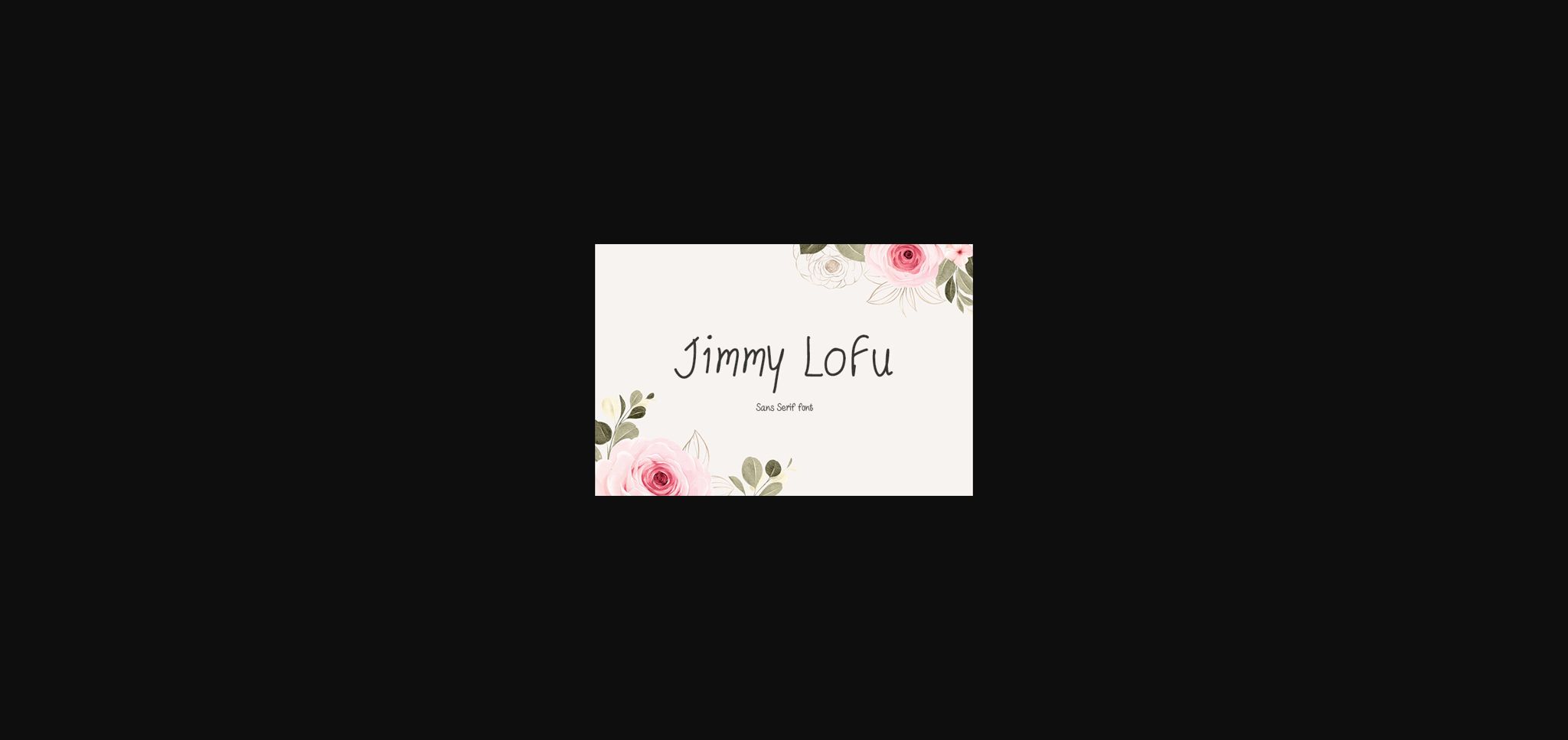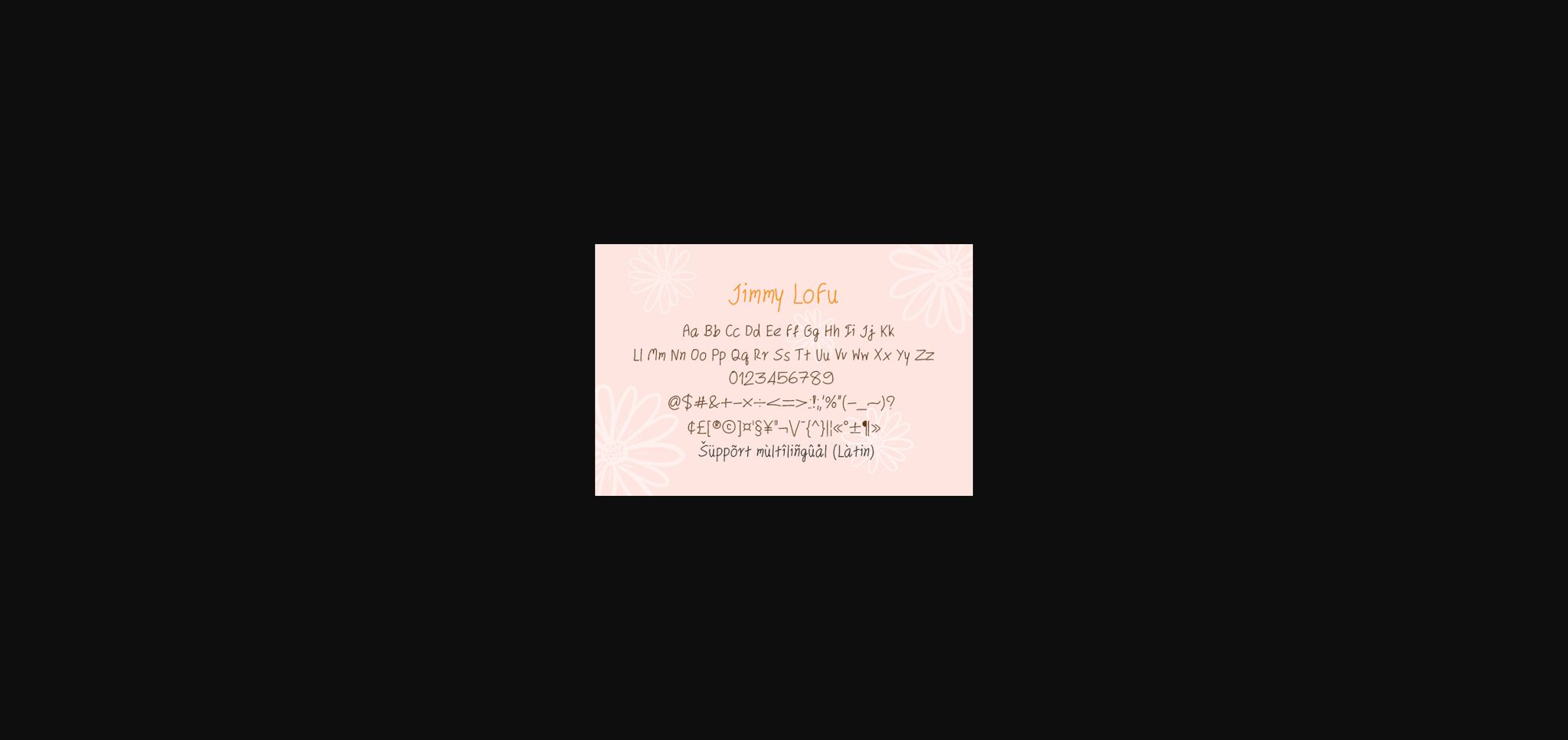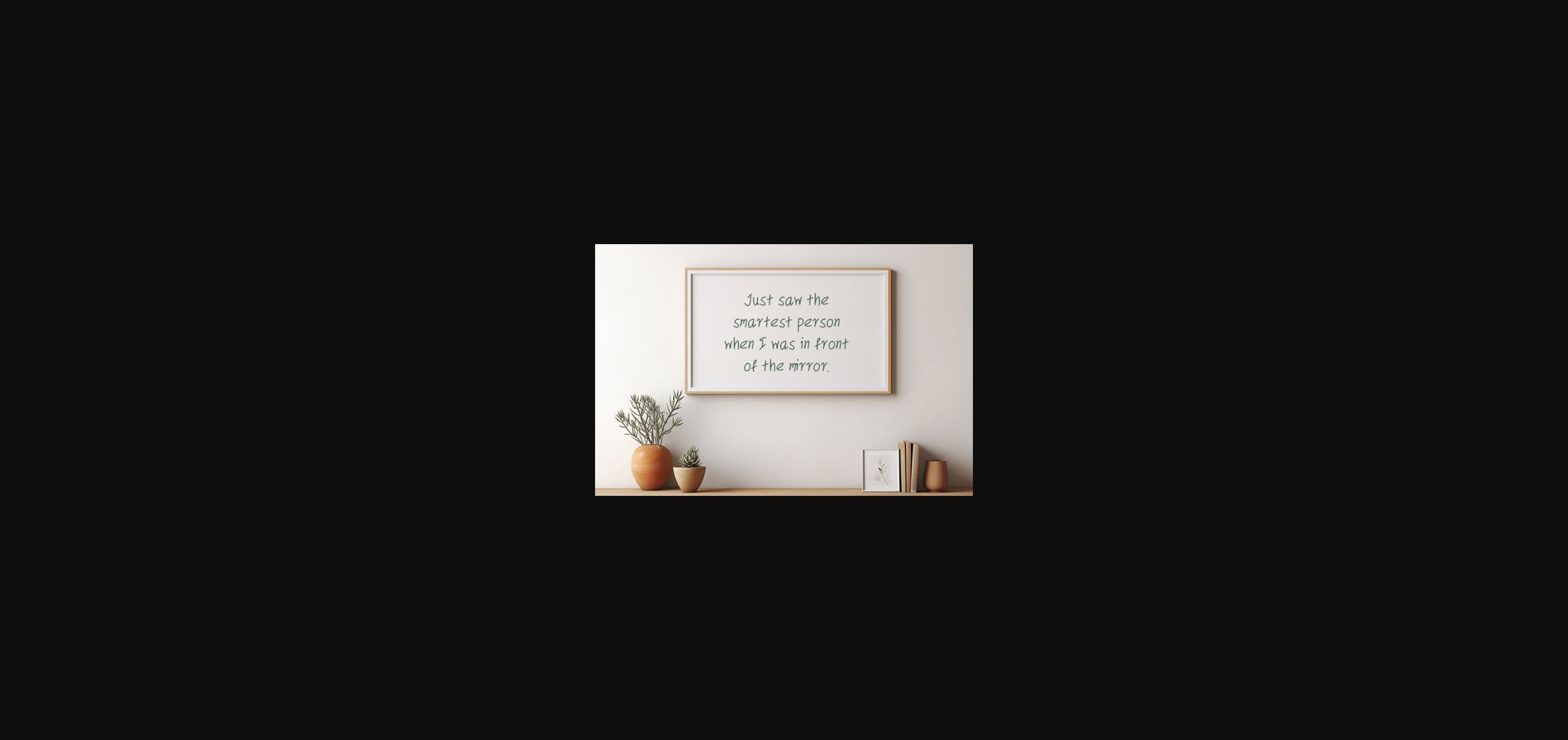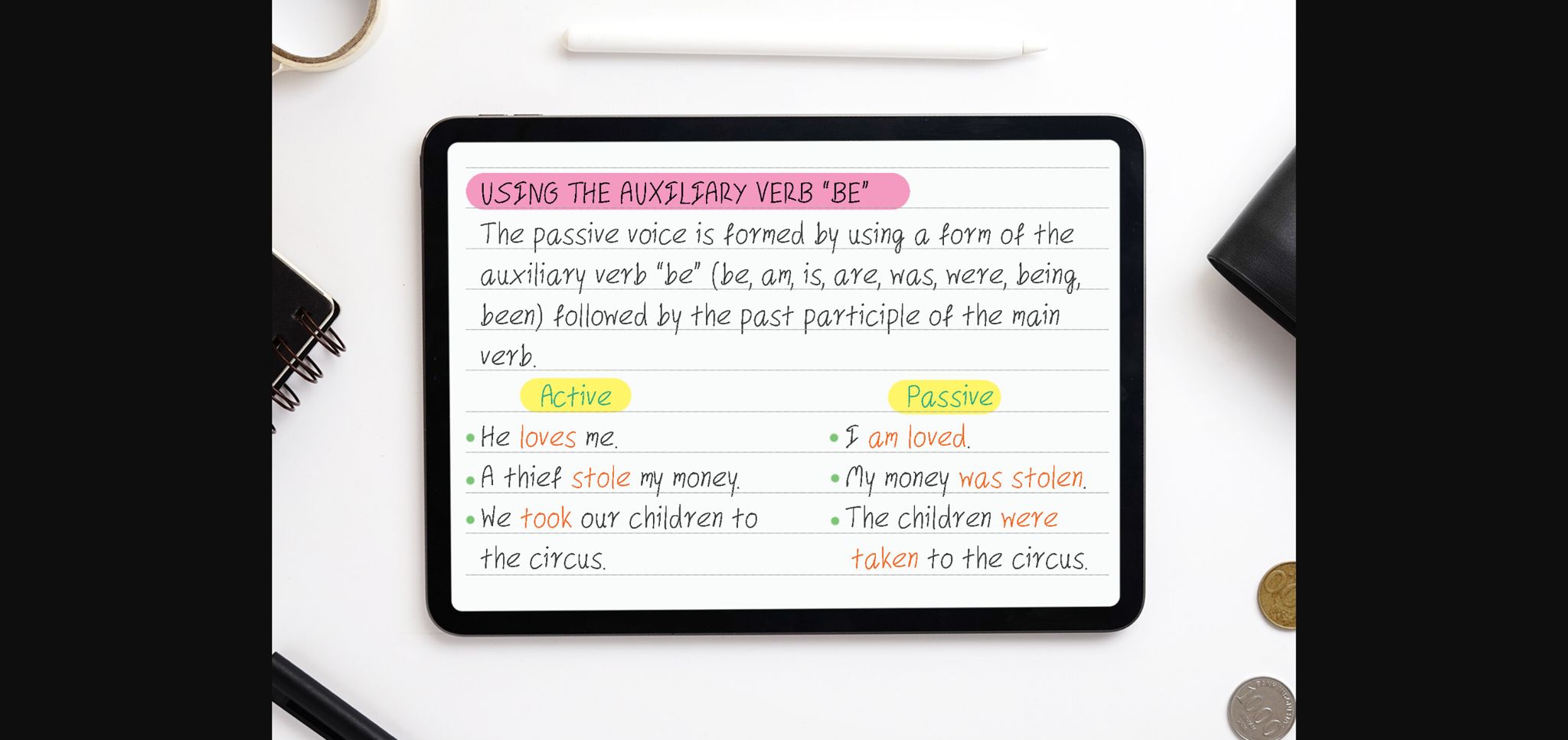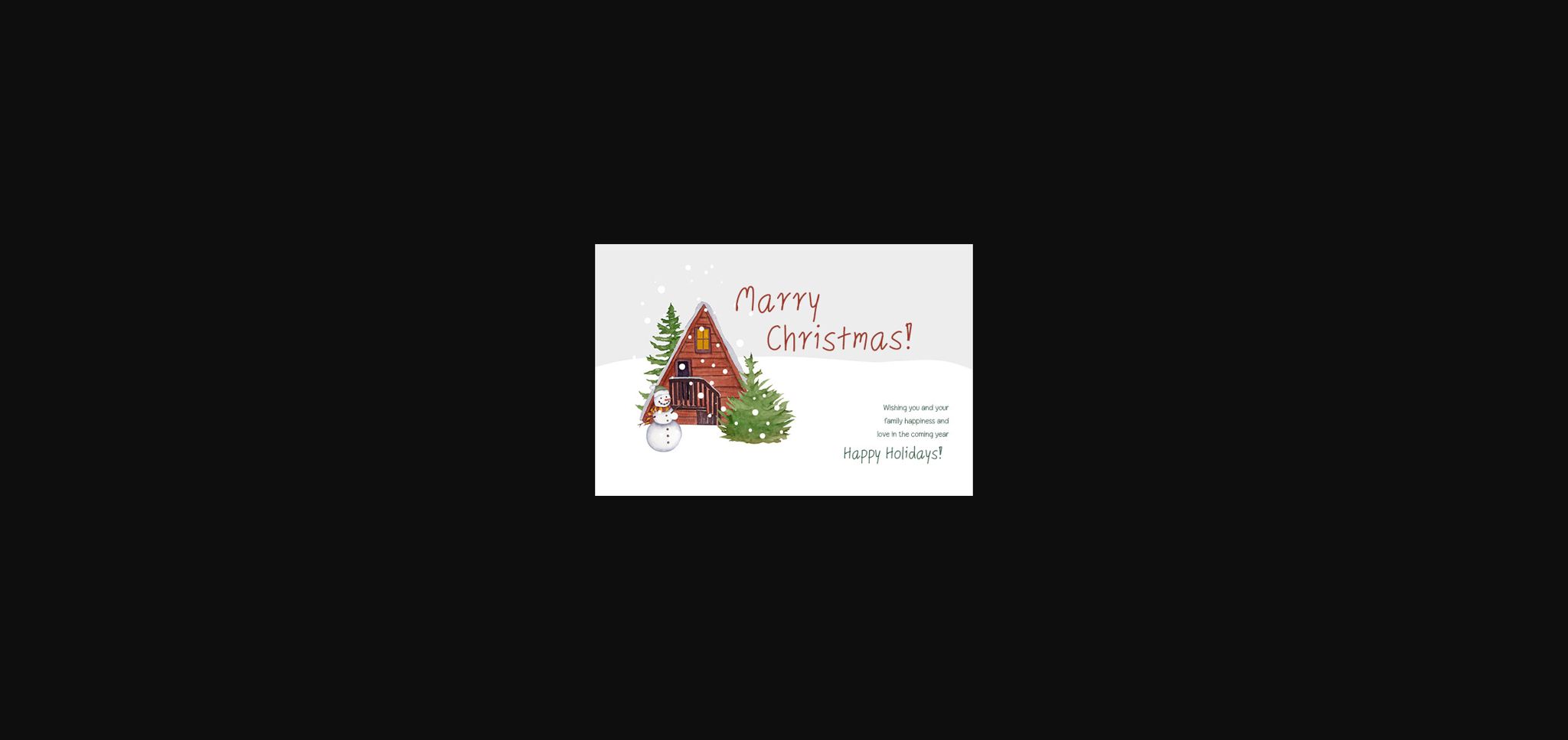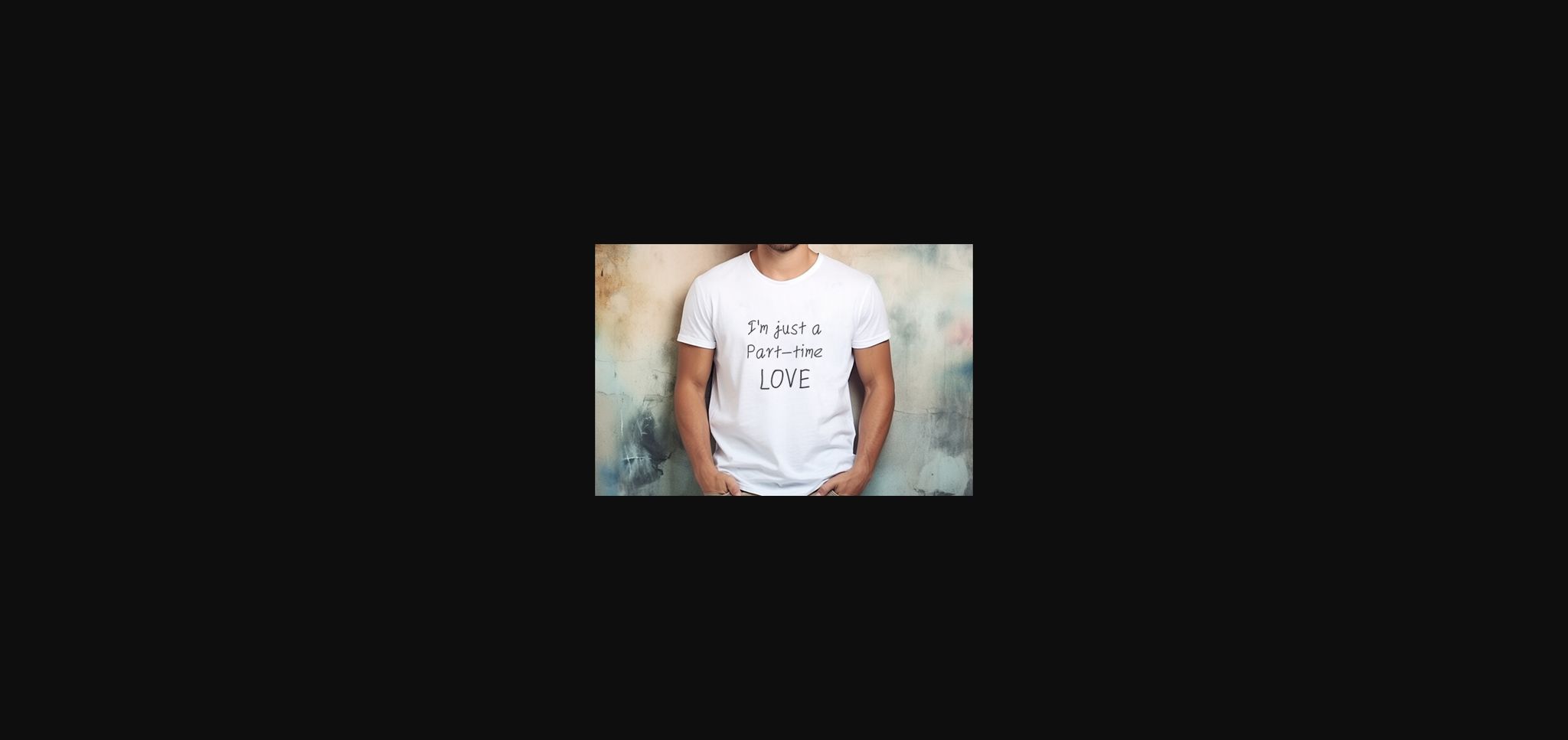
Jimmy Lofu Font
About Jimmy Lofu Font
Jimmy LoFu is designed in a charming, whimsical, and a bit quirky sans serif font style. It would be awesome to your fun projects or diary planner, on wedding invitations, thank you cards, quotes, greeting cards, logos, posters, blogs, bag, T Shirt, clothing and other designs. Be sure to check it out!